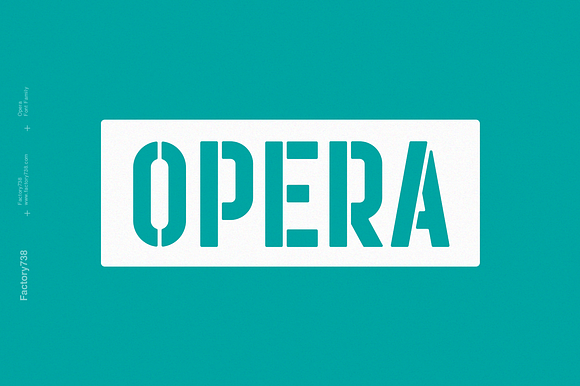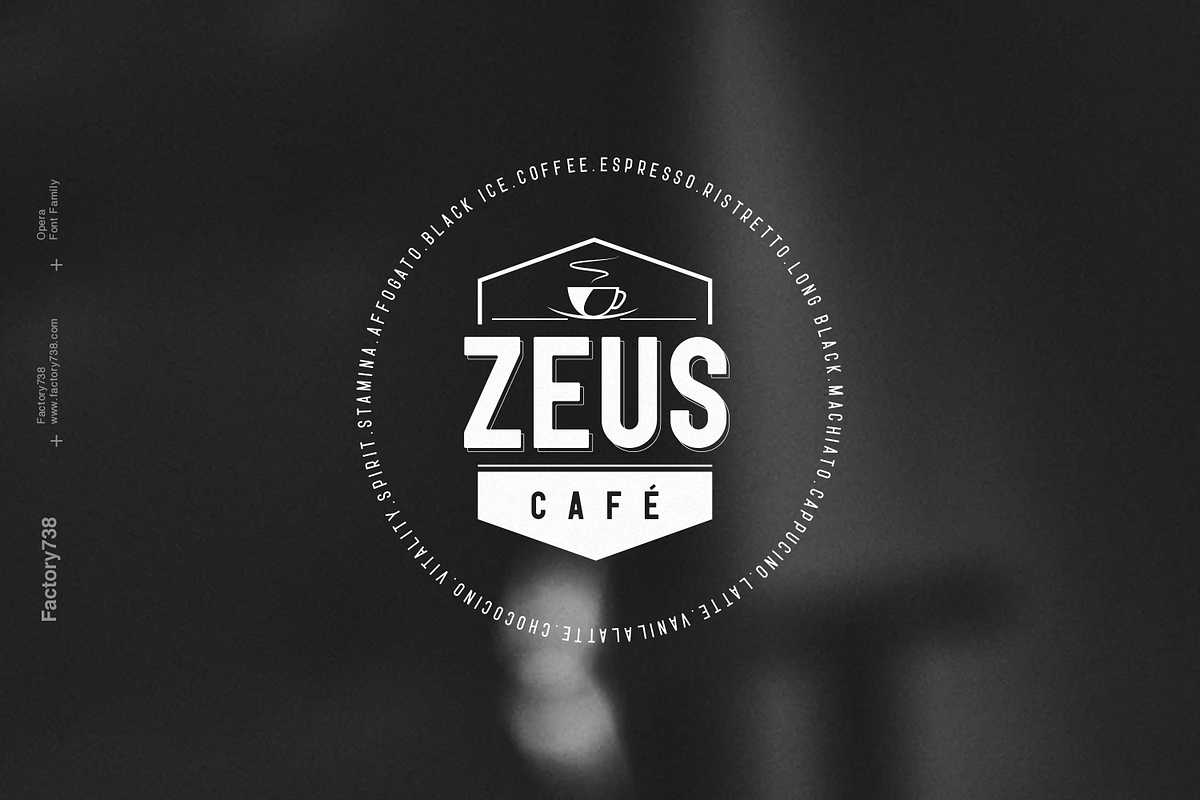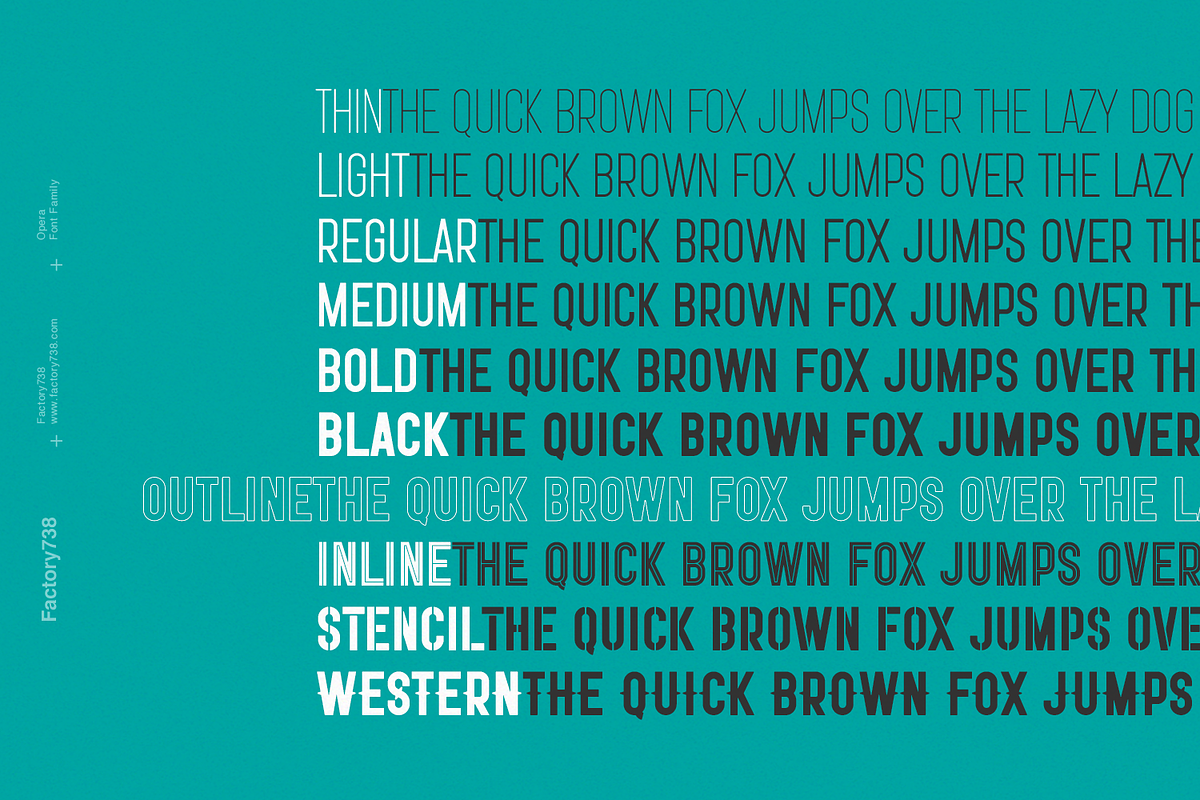
Opera - a Bold Sans-serif Font Family
Opera is a bold sans-serif font family. The combination of simple and geometric elements renders a bold design. It can be used to create almost all types of design projects like print materials and web design. Just use your imagination and your project will become more alive and vivid than ever with one of the Opera fonts. You want to make a greeting card or a package design, or even a brand identity? Feel free to play with all font styles, that will lead you to your next successful project.
10 styles fonts (Thin, Light, Regular, Medium, Bold, Black, Outline, Inline, Stencil, and Western)
Opera - a Bold Sans-serif Font Family by Factory738 Studio fits naturally into Branding, posters, packaging, typography.